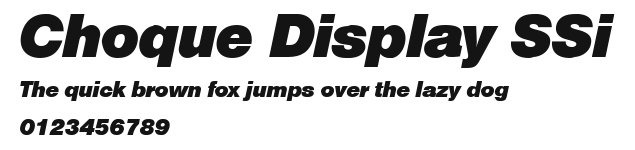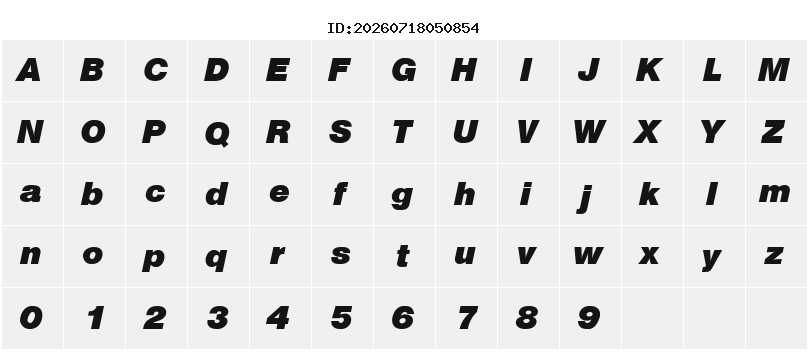
• Font Name: Choque Display SSi
• Full Font Name: Choque Display SSi Bold Italic
Choque Display SSi.ttf is a modern, elegant sans-serif font designed for ultimate readability and visual harmony. Perfect for branding, headlines, web design, and print materials.